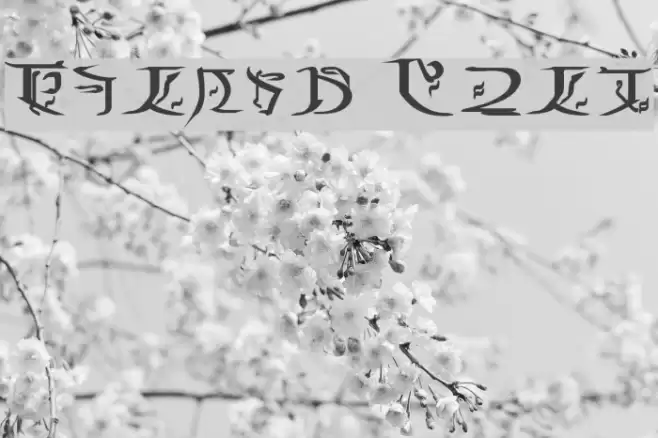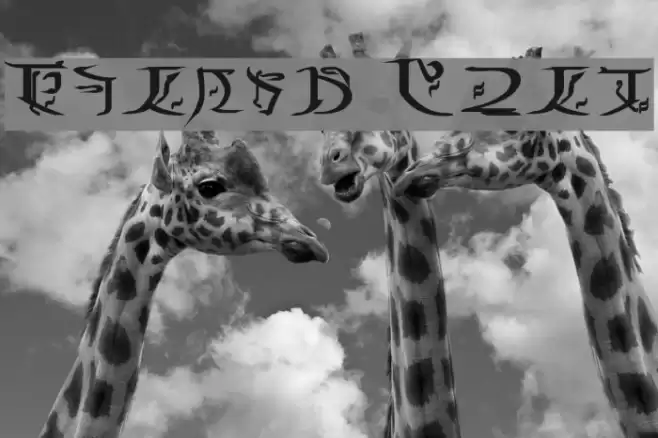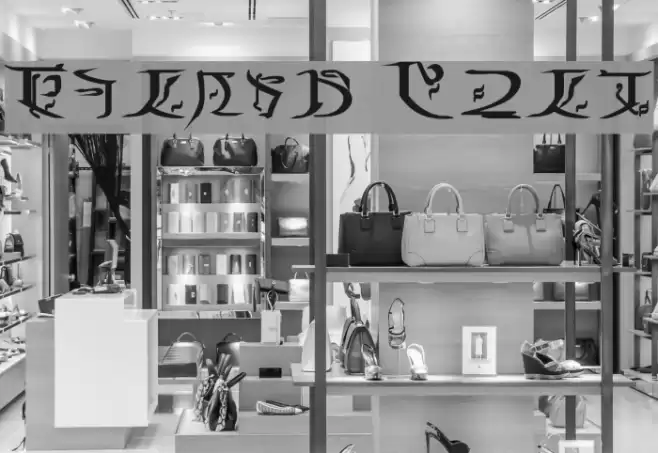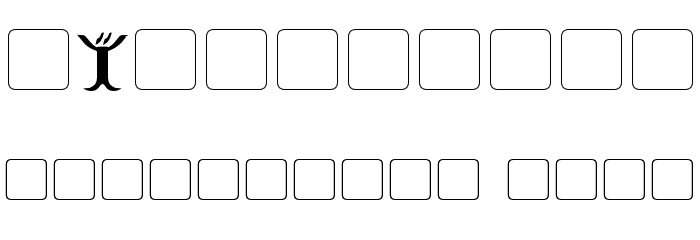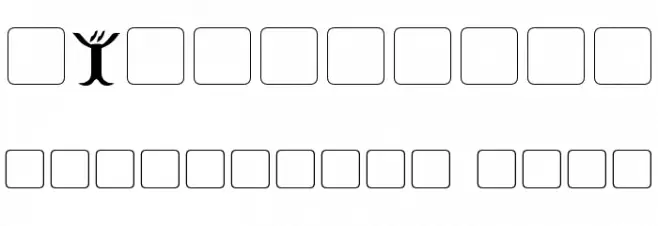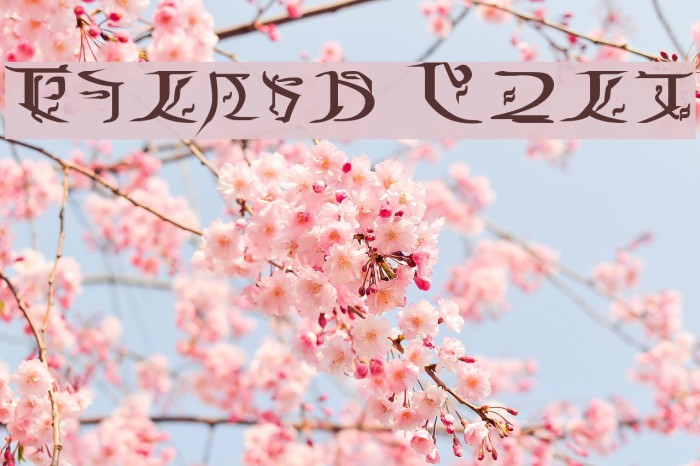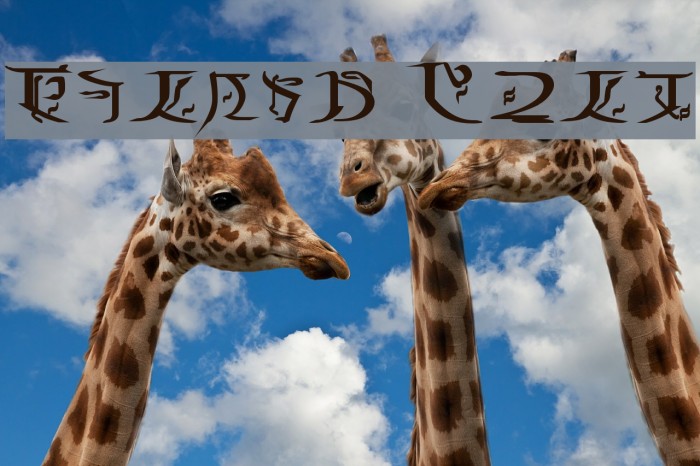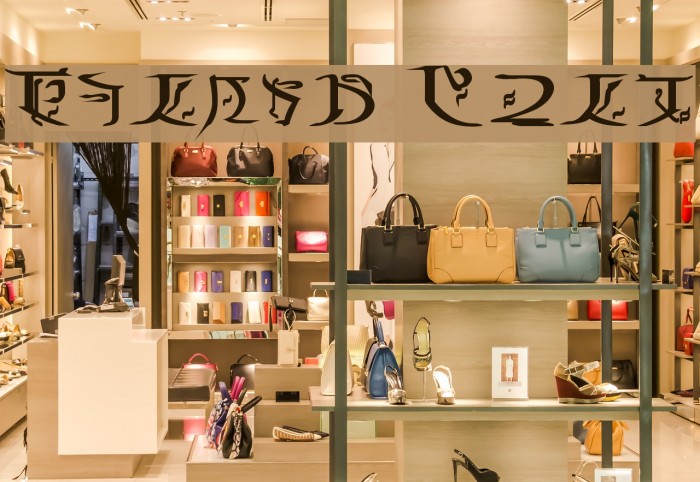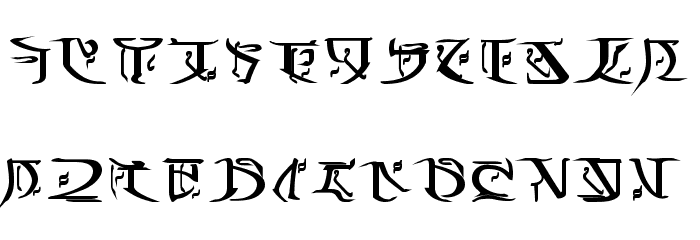
Falmer Bold Font
Falmer Bold Description
This font features a highly decorative and intricate design, reminiscent of ancient scripts or fantasy-themed typography. The characters are adorned with sharp, angular embellishments and unique flourishes that give it a mystical and otherworldly appearance. The uppercase and lowercase letters maintain a consistent style, with each character exhibiting a distinct and artistic form. The numerals and special characters are equally stylized, ensuring a cohesive look across all elements. This font is ideal for projects that require a touch of fantasy or historical ambiance, such as game titles, book covers, or themed event invitations.
A decorative, fantasy-inspired font with intricate, angular designs.
- Proposed Projects: Ideal for fantasy-themed projects, game titles, book covers, and themed event invitations.
- Use Case: Logos, Headlines, Decorative text